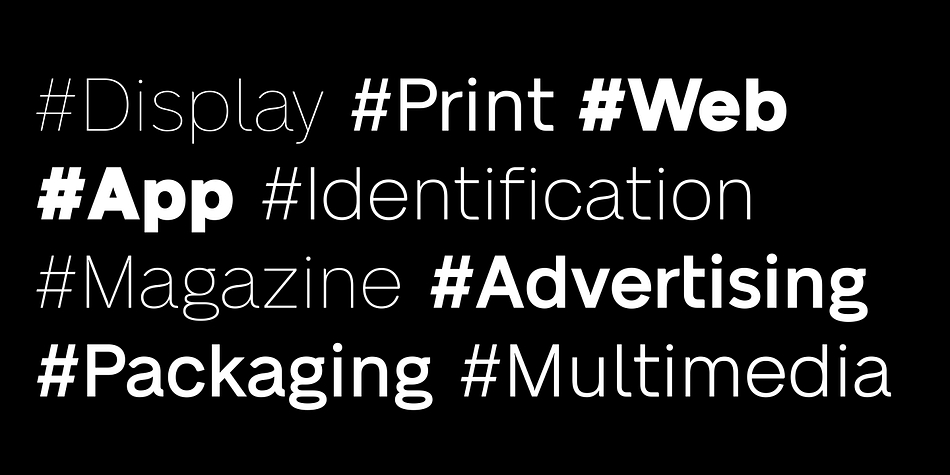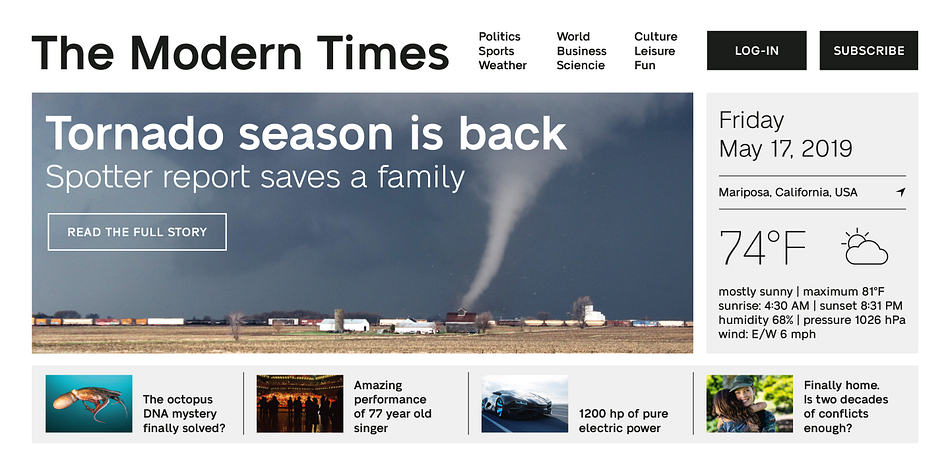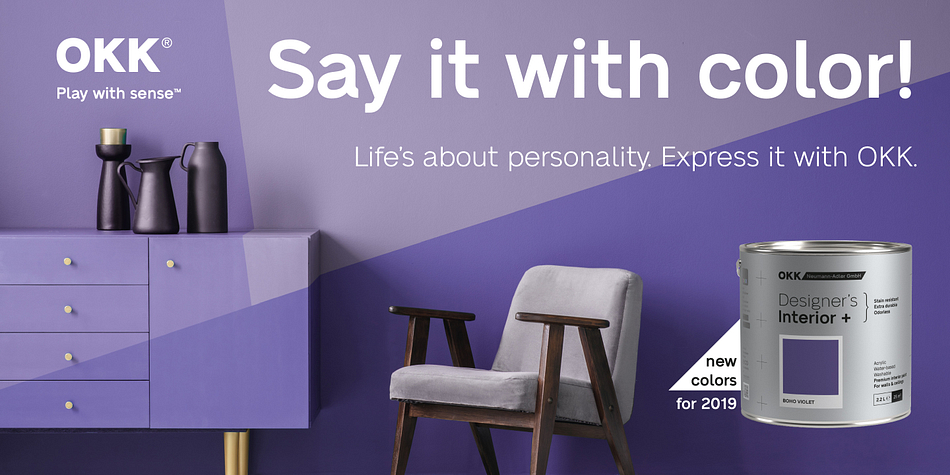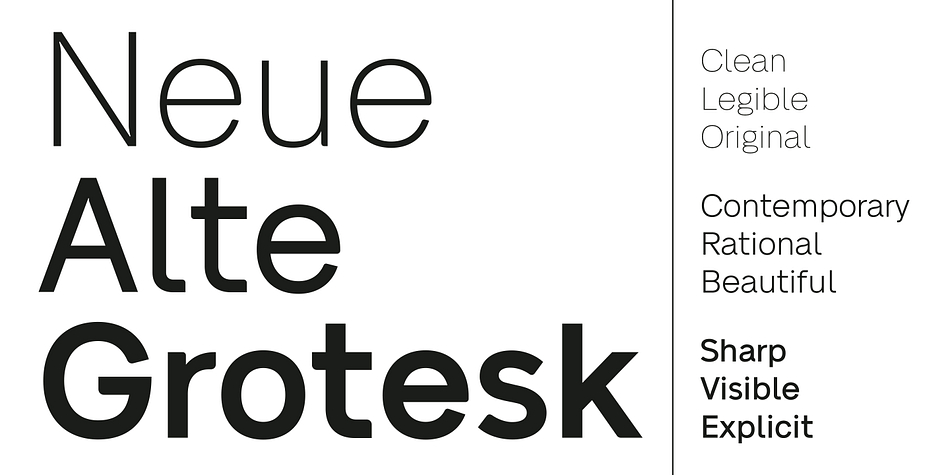
Neue Alte Grotesk is a sans serif font family. This typeface has ten styles and was published by VISUAL WORKS.
A sans serif display typeface inspired by early German grotesques and Swiss classics with some geometric simplifications for modern times.